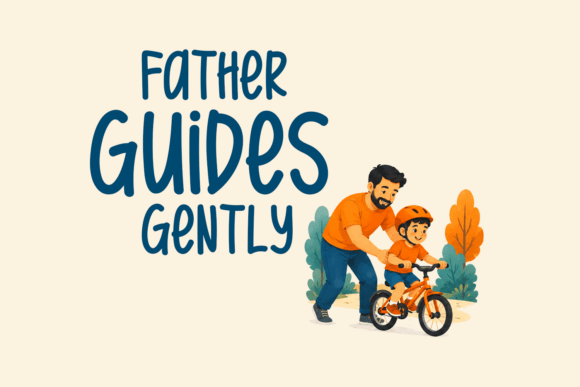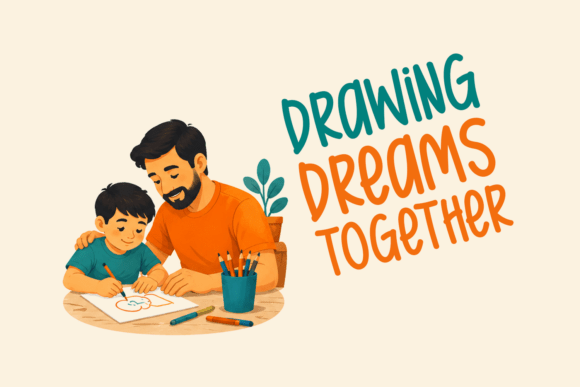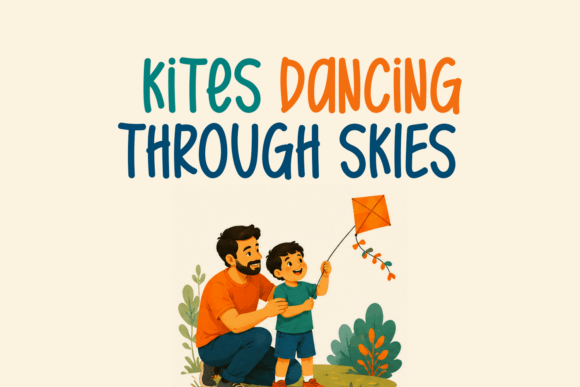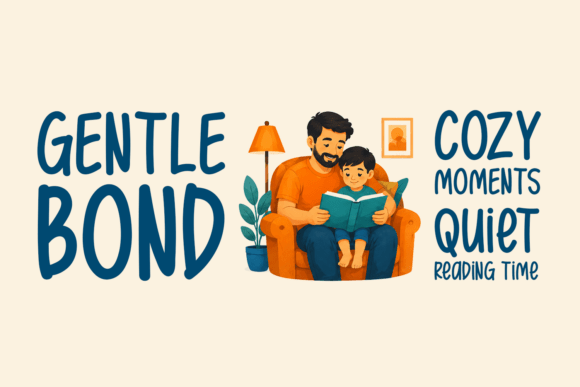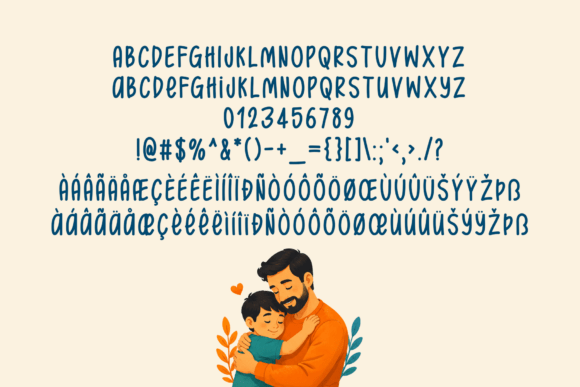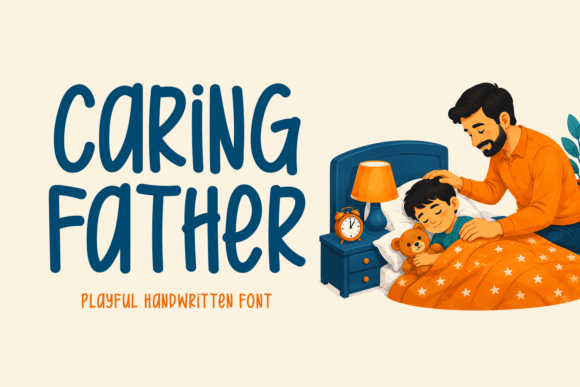
Caring Father Font: The Perfect Choice for Heartwarming Designs
In the world of typography, fonts play a crucial role in conveying emotions and setting the tone for creative projects. For designers and crafters looking to add a touch of warmth and love to their work, the Caring Father font is an excellent choice. This beautiful, handwritten font is inspired by the love, comfort, and family bonding moments that make life so precious.
The Inspiration Behind Caring Father
Caring Father is a warm and heartfelt handwritten font that captures the essence of family and love. Its smooth curves and playful personality make it perfect for a wide range of creative projects, from children’s projects to emotional storytelling designs. The font’s natural, handwritten feel brings a soft, friendly, and loving touch to every project, making it an ideal choice for designers and crafters who want to create something truly special.
Perfect for a Variety of Creative Projects
One of the best things about the Caring Father font is its versatility. Its unique blend of playfulness and warmth makes it suitable for a wide range of creative projects, including:
- Children’s Projects: Create engaging and fun designs for kids with a font that feels like a warm hug.
- Greeting Cards: Add a personal touch to your cards with a font that feels like a handwritten message from the heart.
- T-Shirt Designs: Create custom apparel that stands out with a font that’s both playful and heartwarming.
- Posters: Design eye-catching posters that capture the essence of family and love.
- Nursery Decor: Create beautiful and soothing designs for nurseries with a font that feels gentle and loving.
- Branding: Establish a strong brand identity with a font that’s both friendly and approachable.
- Social Media Graphics: Create engaging social media graphics that capture the hearts of your audience.
- Invitations: Design custom invitations that feel like a personal message from you.
- Photo Overlays: Add a touch of warmth to your photos with a font that feels like a handwritten caption.
- Emotional Storytelling Designs: Create designs that tell a story and capture the essence of love and family.
What Makes Caring Father Special?
So, what sets Caring Father apart from other fonts? Here are a few key features that make it a standout choice:
- Smooth Curves: The font’s smooth curves give it a soft, rounded feel that’s both gentle and inviting.
- Playful Personality: Caring Father has a playful personality that’s perfect for designs that need a touch of whimsy and fun.
- Natural Handwritten Feel: The font’s natural, handwritten feel makes it feel like a personal message from the heart.
- Versatility: Caring Father is suitable for a wide range of creative projects, from children’s projects to emotional storytelling designs.
Tips for Using Caring Father
To get the most out of the Caring Father font, here are a few tips to keep in mind:
- Pair it with Other Fonts: Experiment with pairing Caring Father with other fonts to create a unique and interesting contrast.
- Use it in Combination with Images: Combine Caring Father with images that capture the essence of family and love to create a powerful and emotional design.
- Experiment with Colors: Try out different colors to find the perfect match for your design and the Caring Father font.
In conclusion, the Caring Father font is a beautiful and versatile handwritten font that’s perfect for designers and crafters looking to add a touch of warmth and love to their creative projects. Its smooth curves, playful personality, and natural handwritten feel make it an excellent choice for a wide range of designs, from children’s projects to emotional storytelling designs. Whether you’re a seasoned designer or a crafty DIY enthusiast, Caring Father is sure to become a go-to font in your collection.